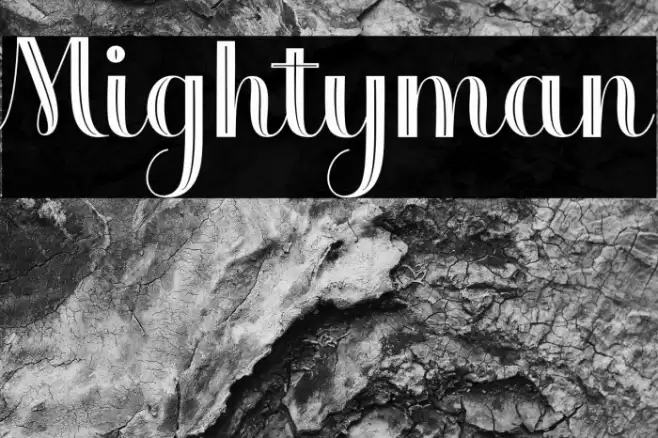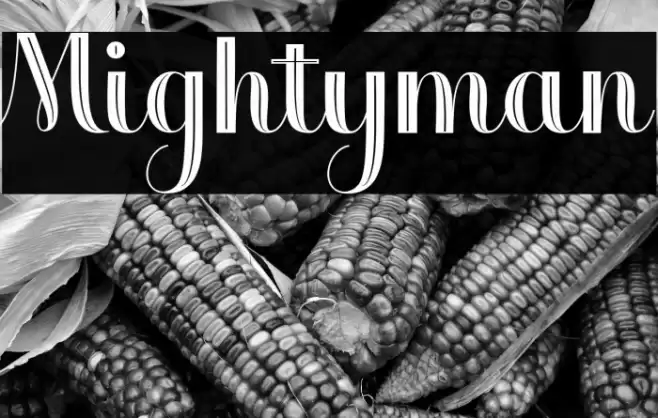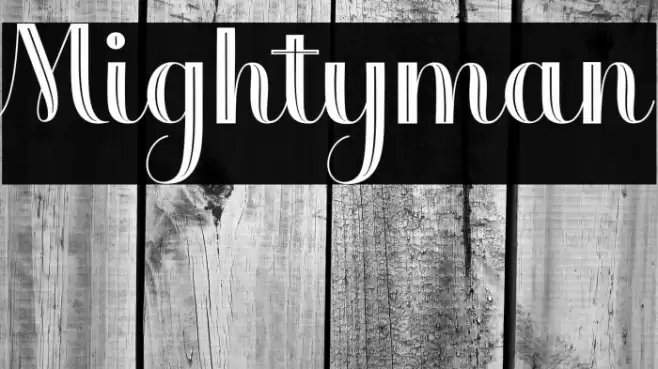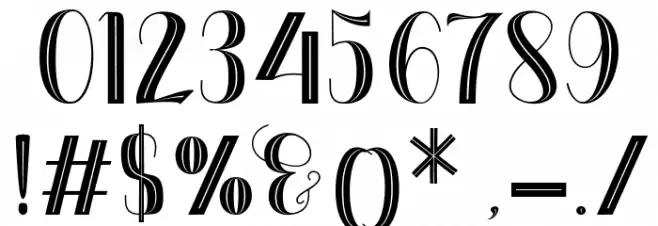
Mightyman Font
Mightyman Description
This font features an elegant and decorative script style with a modern twist. The uppercase letters are characterized by their tall, slender forms and intricate swashes, giving them a sophisticated and artistic flair. The lowercase letters maintain a consistent flow, with smooth curves and loops that enhance readability while retaining a stylish appearance. The numerals are uniquely designed, incorporating the same decorative elements as the letters, making them stand out. Special characters are thoughtfully crafted to match the overall aesthetic, ensuring a cohesive look across all text elements. This font's distinct personality makes it suitable for creative and expressive design projects.
An elegant and decorative script font with modern swashes and artistic flair from Regular fonts.